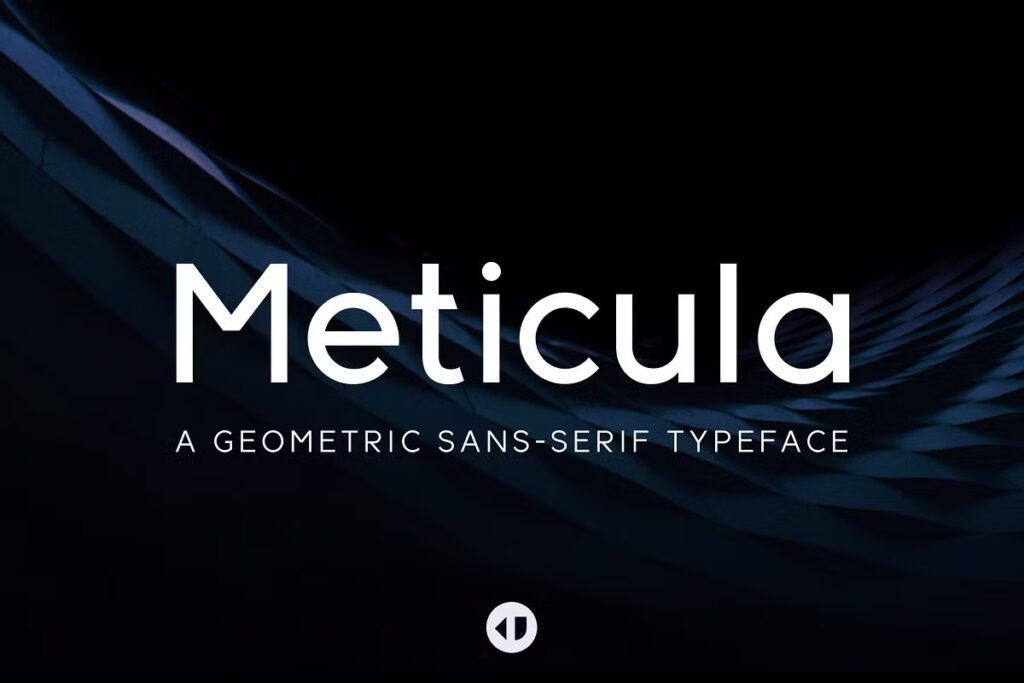
Meticula – Sans-serif Typeface: A Modern, Versatile Font Family
Meticula is a meticulously designed sans-serif typeface that blends geometric shapes with a minimalist style. With a family of 18 fonts, including various weights and italics, this font is the perfect solution for designers seeking a modern, sleek look for their typography and graphic design projects. Whether you’re working on branding, editorial, or digital interfaces, Meticula adapts to suit any purpose with elegance and precision.
Key Features of Meticula Typeface
18 Font StylesMeticula offers a wide range of options with 18 different styles, including Thin, Extra Light, Regular, Medium, Semi Bold, Bold, Extra Bold, and their italic counterparts. Additionally, there’s a unique Outline version, adding extra flair to your designs.
Minimalist DesignInspired by modern sans-serif fonts, Meticula’s clean, geometric shapes make it ideal for both formal and creative designs. Its minimalist approach makes it an excellent choice for a variety of applications, from web design to print.
Geometric PrecisionEvery letter in the Meticula font family is designed with geometric precision, ensuring a harmonious and polished look across all styles. Its crisp and clear lines make it particularly suited for headlines, logos, and branding.
Versatile for Any ProjectWhether you’re designing a corporate identity, a modern website, or editorial layouts, Meticula’s range of weights and styles allows you to create stunning visual hierarchies and maintain consistency in your design.
Why Choose Meticula Sans-serif Typeface?
Versatile with 18 font styles
Geometric and modern design
Perfect for a variety of design projects
Suitable for branding, editorial, and web design